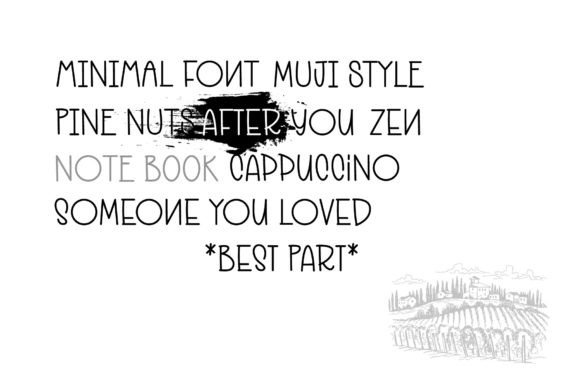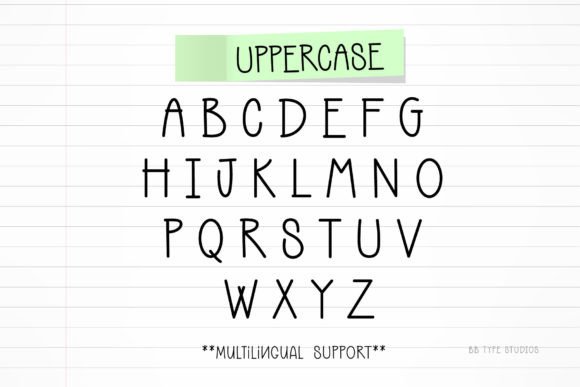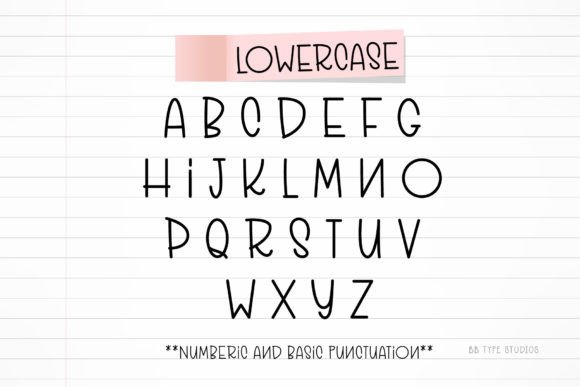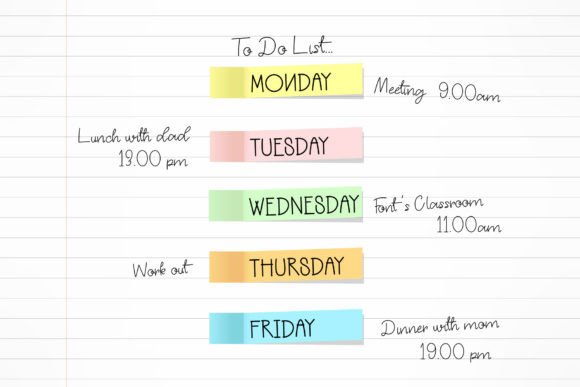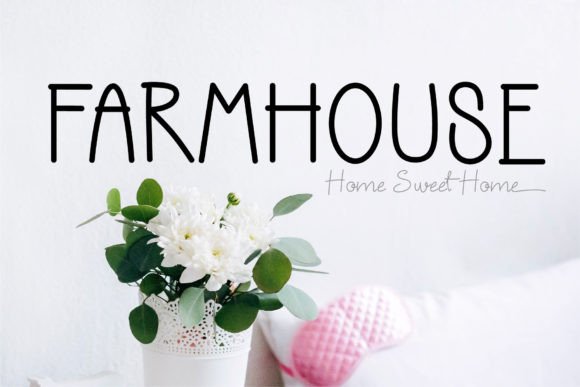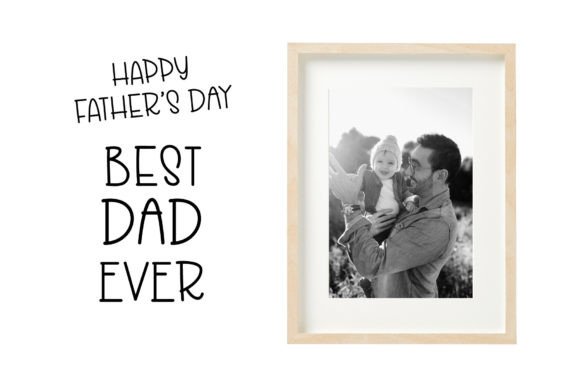
Discover the Charm of American Cottage Font: A Sweet and Friendly Handwritten Delight
Are you a designer, crafter, or DIY enthusiast looking for a font that embodies warmth, friendliness, and a touch of rustic charm? Look no further than the American Cottage font! This sweet and friendly handwritten font is perfect for a wide range of design projects, from home decor and crafting to branding and marketing materials.
The Unique Style of American Cottage Font
American Cottage font boasts a natural and unique style that sets it apart from other fonts. Its handwritten charm is reminiscent of a bygone era, evoking feelings of nostalgia and warmth. The font’s irregularities and quirks give it a personal, human touch that’s perfect for designs that require a friendly and approachable tone.
One of the standout features of American Cottage font is its versatility. Whether you’re designing a logo, creating a social media graphic, or crafting a handmade product, this font adapts seamlessly to any design style. Its natural, effortless look makes it incredibly fitting for a large pool of designs, from rustic and vintage to modern and playful.
Endless Design Possibilities with American Cottage Font
The only limit to using American Cottage font is your imagination! This font can be used for a wide range of design projects, including:
- Home decor designs, such as wall art, signs, and DIY crafts
- Branding and marketing materials, like logos, business cards, and brochures
- Social media graphics, including Facebook posts, Instagram stories, and Pinterest pins
- Handmade products, such as jewelry, candles, and soap labels
- Stationery and paper crafts, like greeting cards, invitations, and journal pages
Why Choose American Cottage Font?
So, why choose American Cottage font for your design projects? Here are just a few reasons:
- Unique and eye-catching: American Cottage font stands out from more traditional fonts, adding a touch of personality to your designs.
- Versatile: This font can be used for a wide range of design projects, from rustic to modern and playful.
- Easy to read: Despite its handwritten nature, American Cottage font is clear and easy to read, making it perfect for designs that require a personal touch.
- Customizable: You can adjust the font size, color, and style to fit your design needs.
Tips for Using American Cottage Font
To get the most out of American Cottage font, here are a few tips:
- Pair with complementary fonts: Combine American Cottage font with other fonts that complement its style, such as serif or script fonts.
- Experiment with colors: Try out different colors and textures to add depth and interest to your designs.
- Use it sparingly: While American Cottage font is beautiful, it can be overwhelming if used excessively. Use it as an accent font to add a touch of personality to your designs.
American Cottage font is a sweet and friendly handwritten font that’s perfect for designers, crafters, and DIY enthusiasts. Its natural and unique style makes it incredibly versatile, and its charm and personality are sure to captivate your audience. Whether you’re designing a logo, creating a social media graphic, or crafting a handmade product, American Cottage font is the perfect choice. So why wait? Download American Cottage font today and let your imagination run wild!